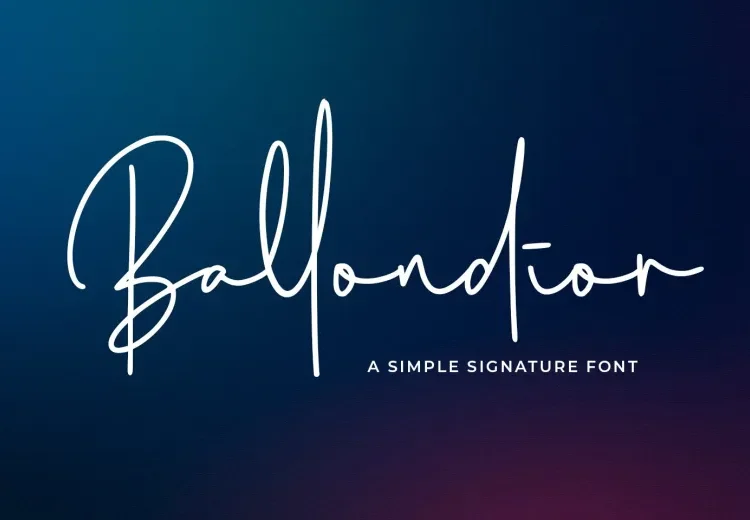
Ballondior Font
Ballondior is a striking monoline font that embodies a modern and sophisticated aesthetic, making it perfect for a wide array of design projects. With its clean, uninterrupted lines and refined simplicity, Ballondior is tailored for applications where bold and impactful typography is essential. Its design versatility makes it an ideal choice for creating memorable logos, eye-catching packaging designs, and distinctive branding strategies.
Whether you’re working on T-shirt designs, promotional cards, banners, or social media graphics, Ballondior offers a professional touch that enhances visual appeal and communicates a strong brand message. Its sleek and elegant style ensures that it stands out in various contexts, from high-end fashion branding to minimalist product packaging.
The monoline structure of Ballondior gives it a unique, timeless quality while remaining adaptable to contemporary design needs. This font not only adds a touch of sophistication but also provides a consistent and cohesive look across different media and formats.